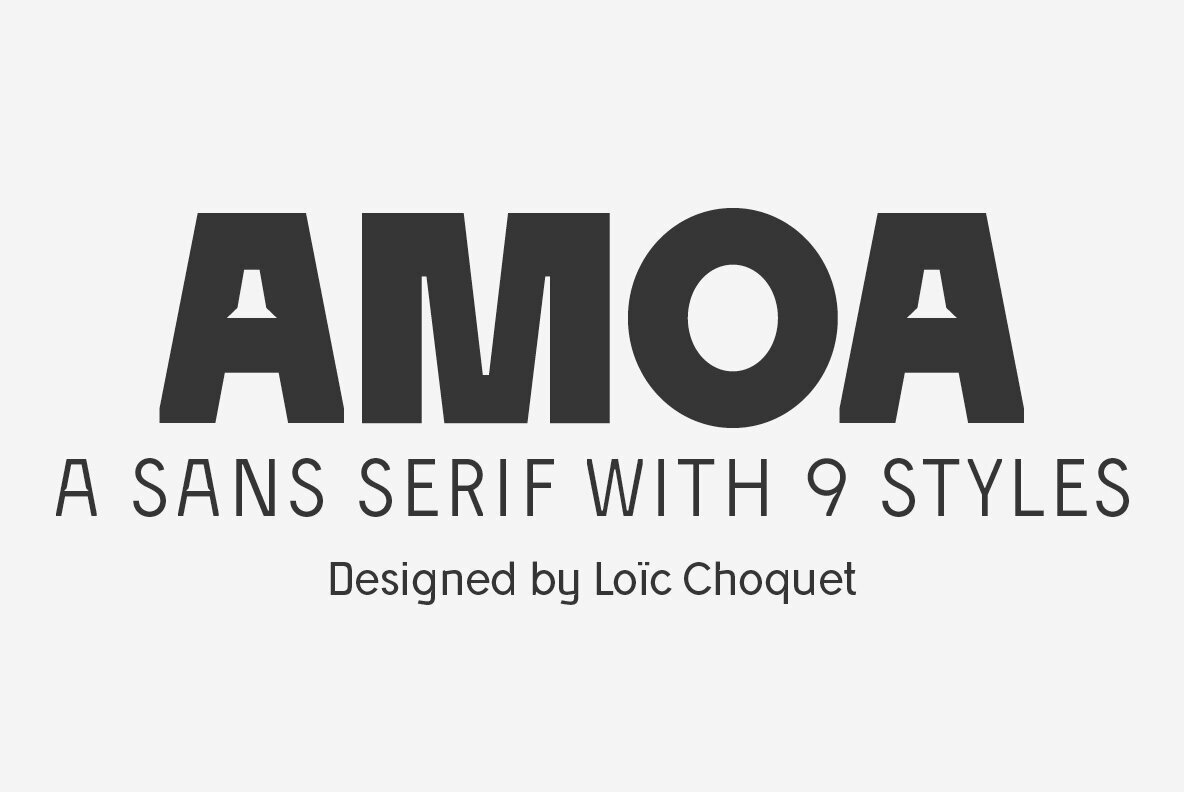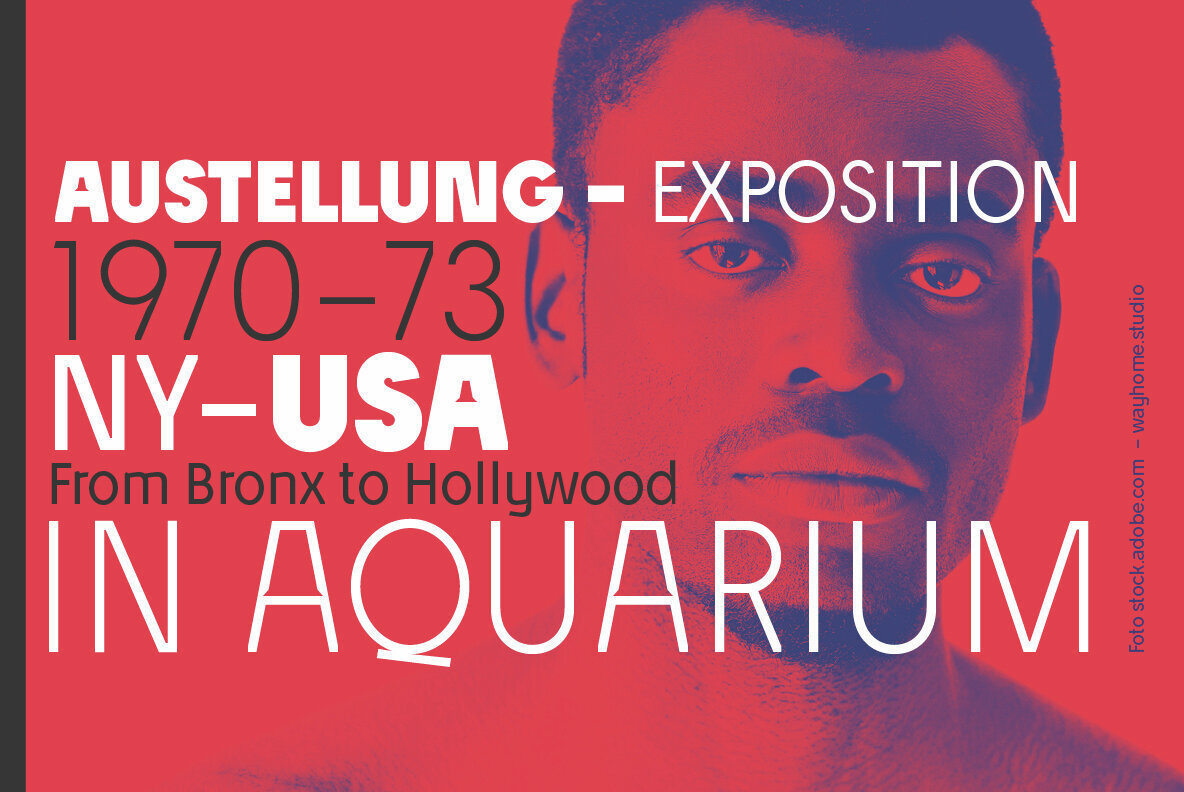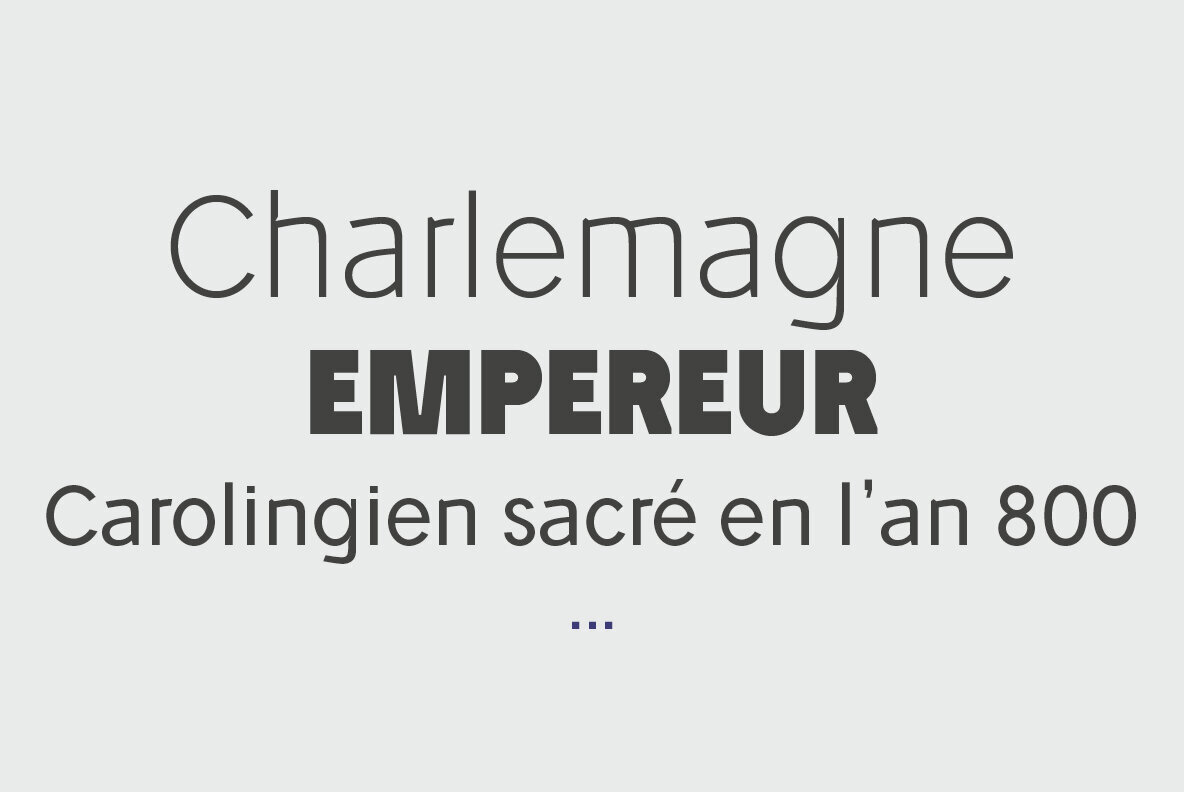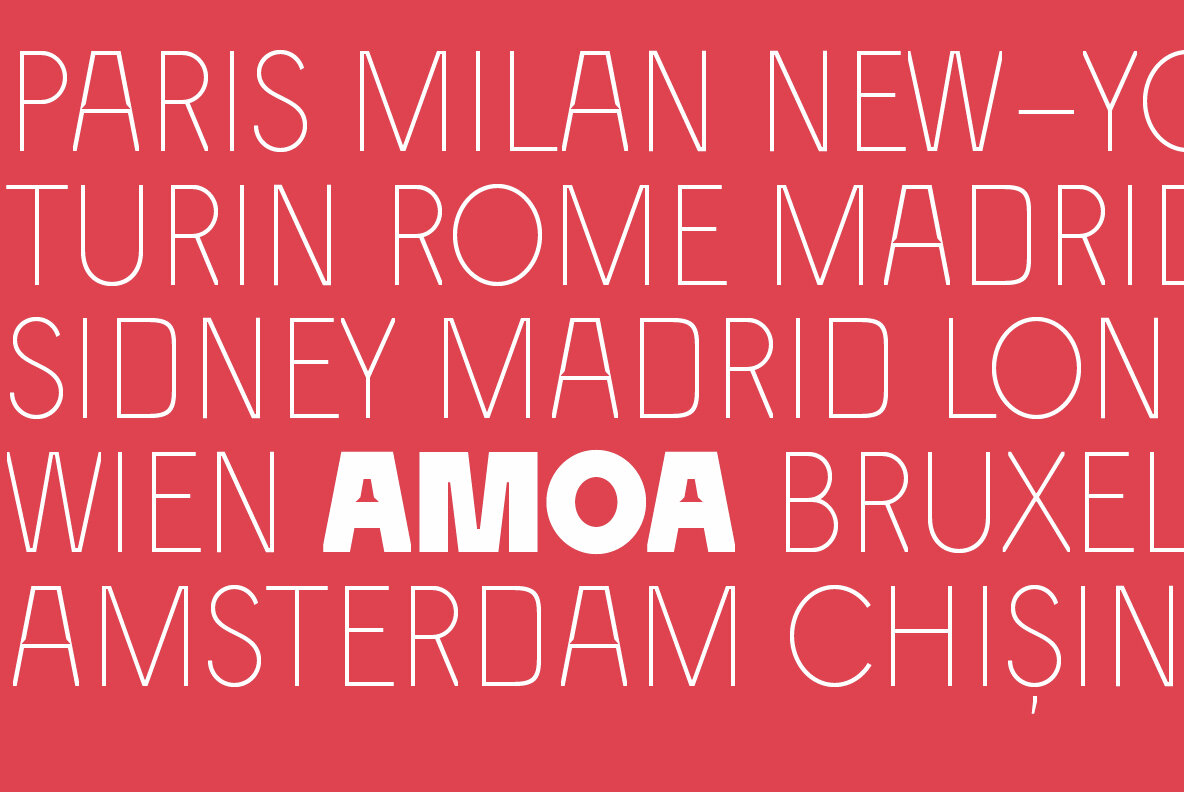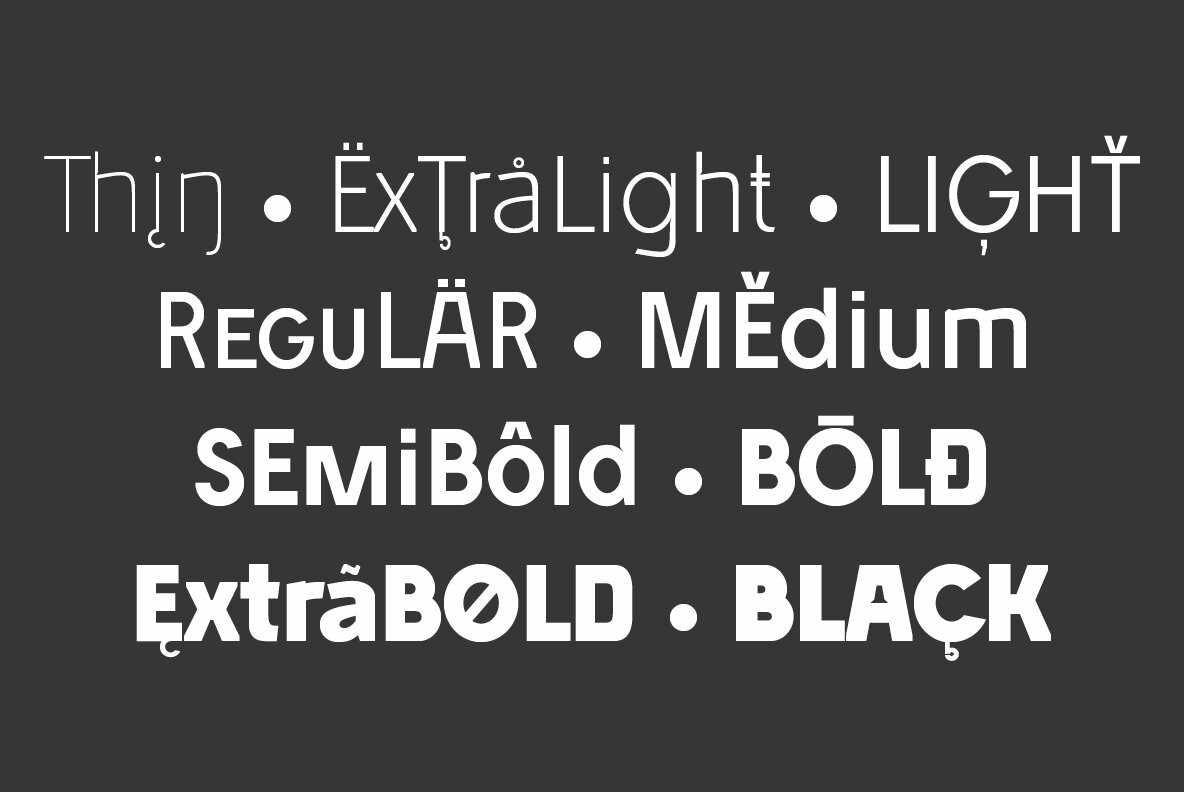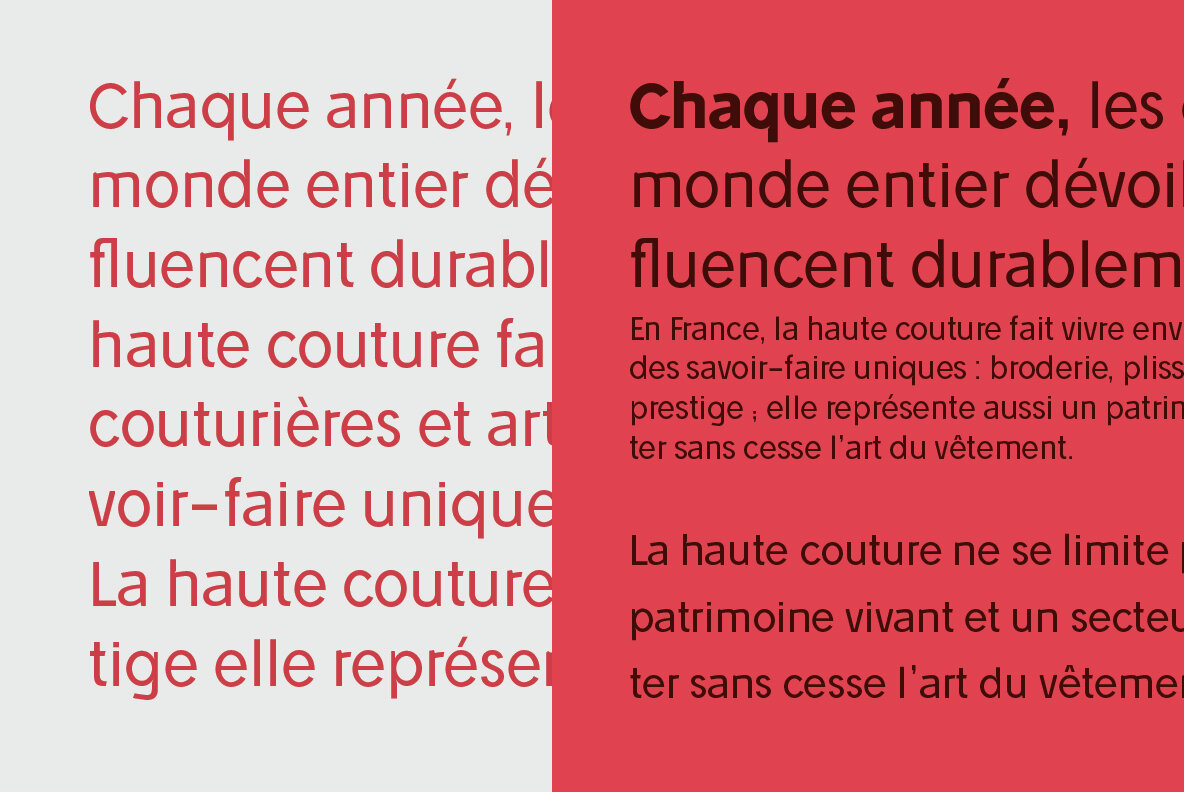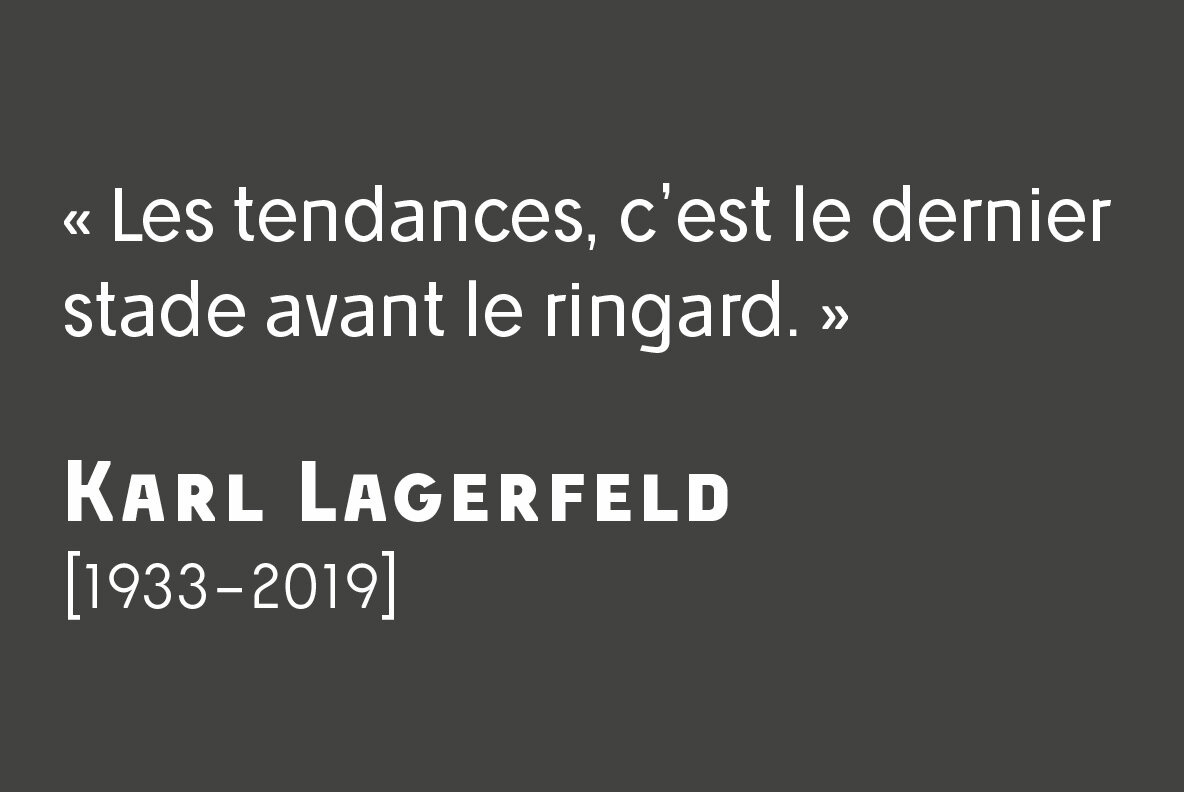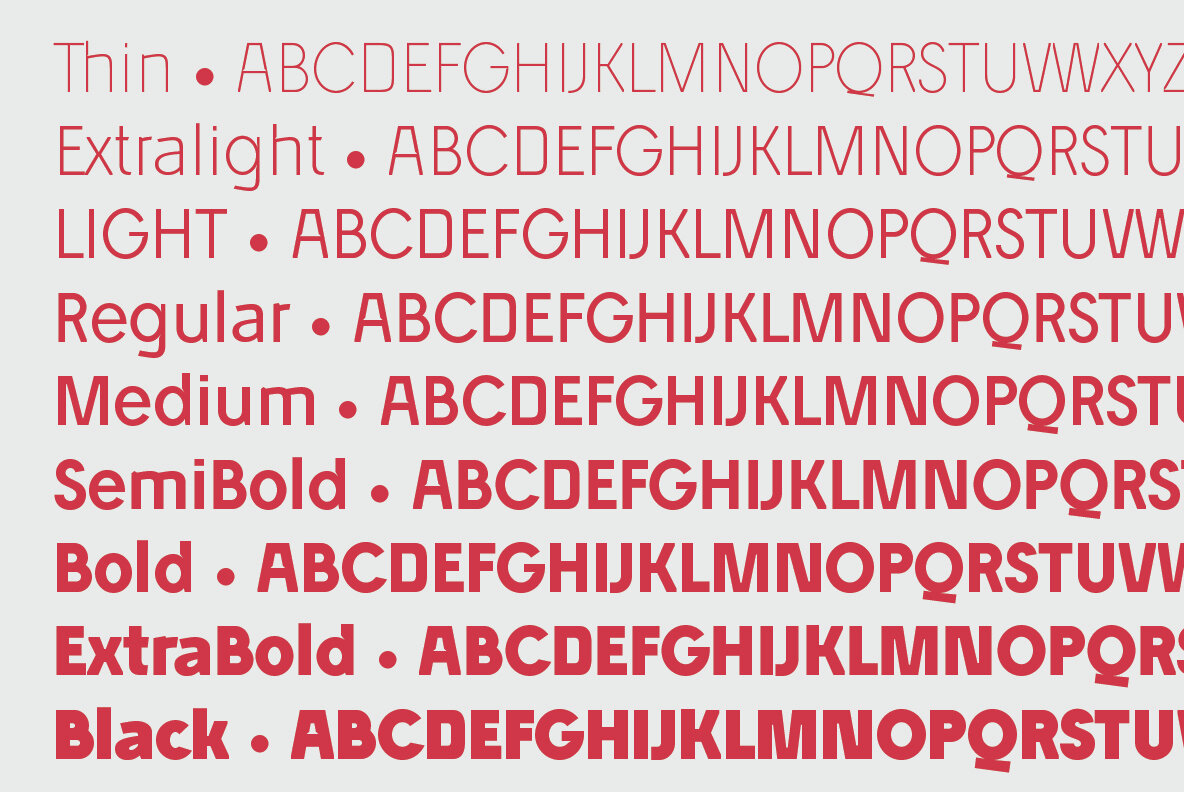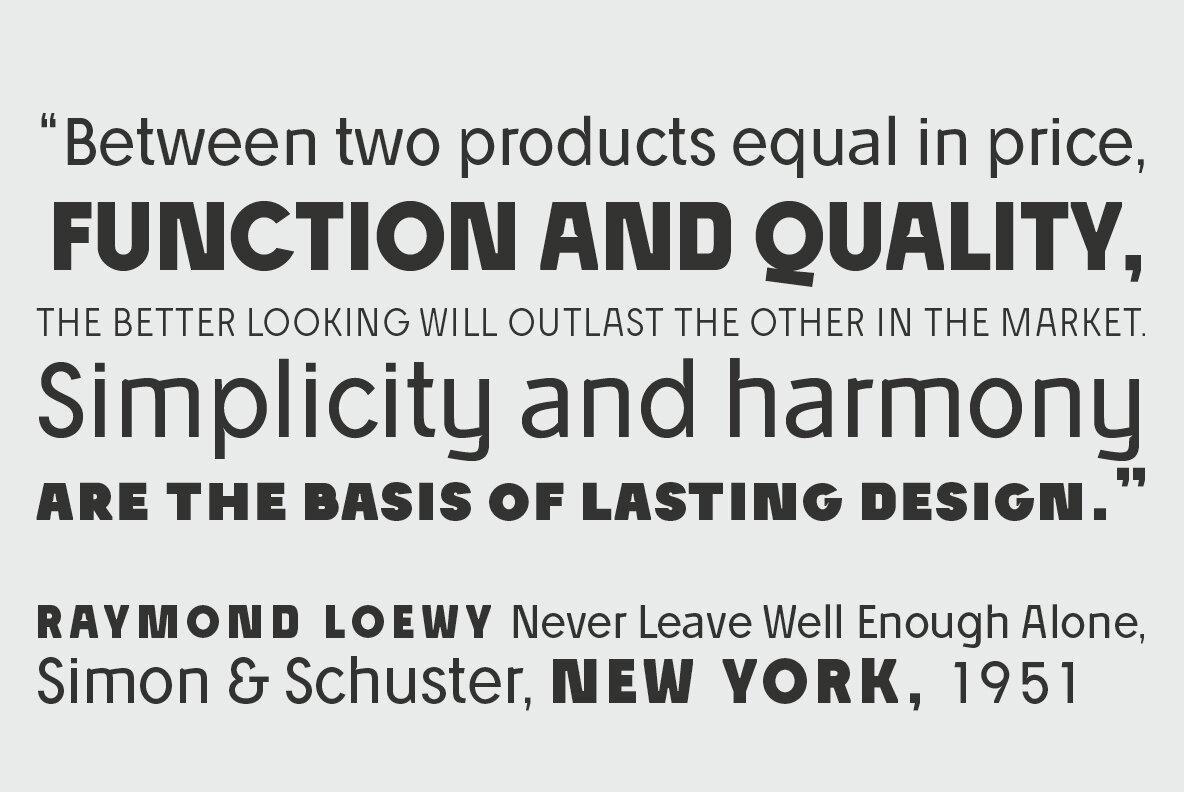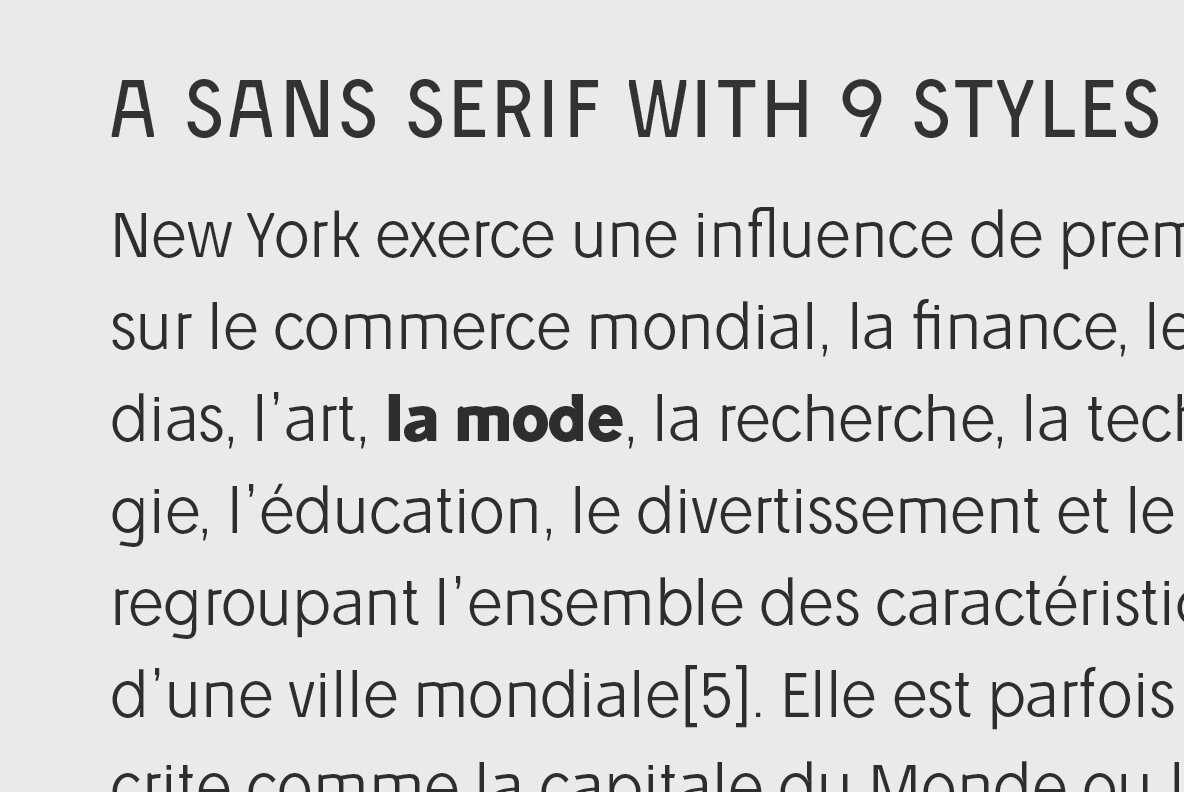
Amoa Font
Meet Amoa, an exquisite sans-serif typeface that unites the elegance of classic forms with the boldness of modern aesthetics. This typeface is distinguished by its unique design elements, from its distinct linking strokes to its captivating curve tensions, which introduce a dynamic and slightly fragmented rhythm. Amoa's assertive letterform choices bring an unconventional edge, crafting a distinctive visual masterpiece appropriate for both large-format display and detailed text composition. Engineered to perfection, Amoa offers a range of nine weights and a repertoire of 511 glyphs that support a staggering 223 languages. Its comprehensive OpenType features ensure it meets the rigorous demands of professional design work, maintaining clarity and style across print and digital platforms.Amoa: A Striking Convergence of Classicism and Modernity